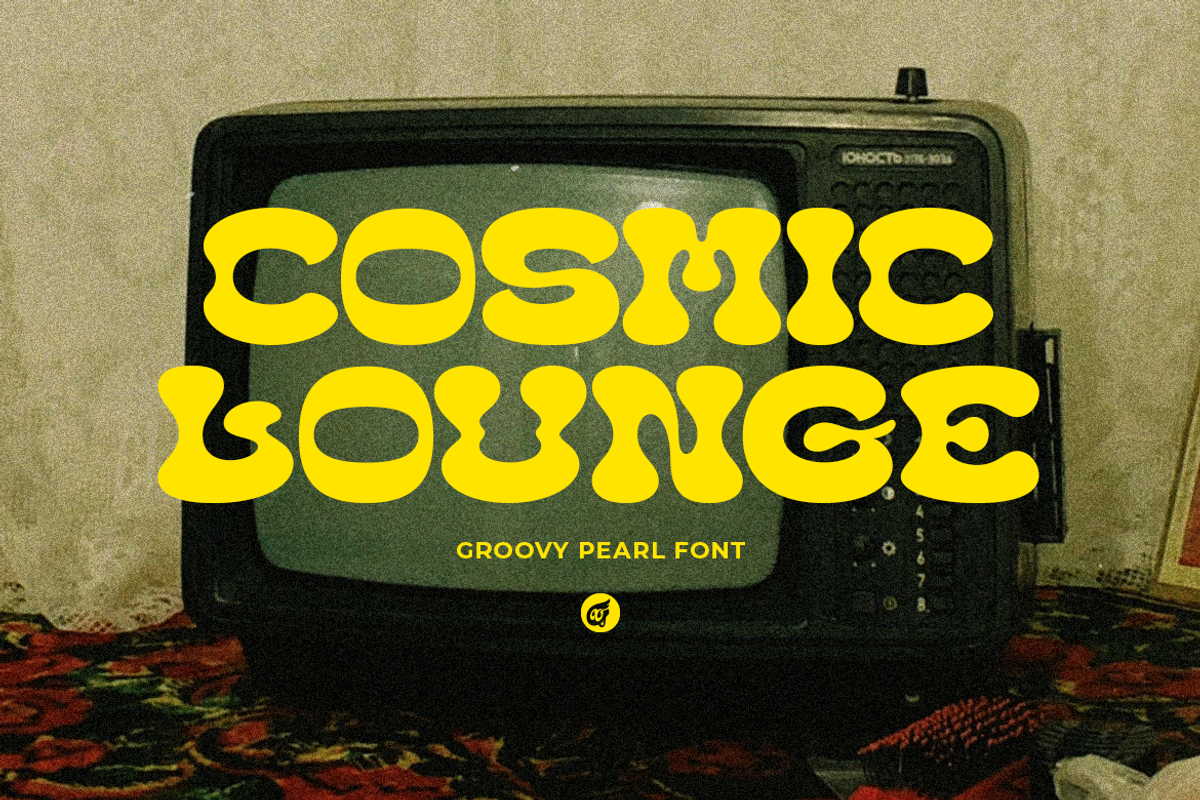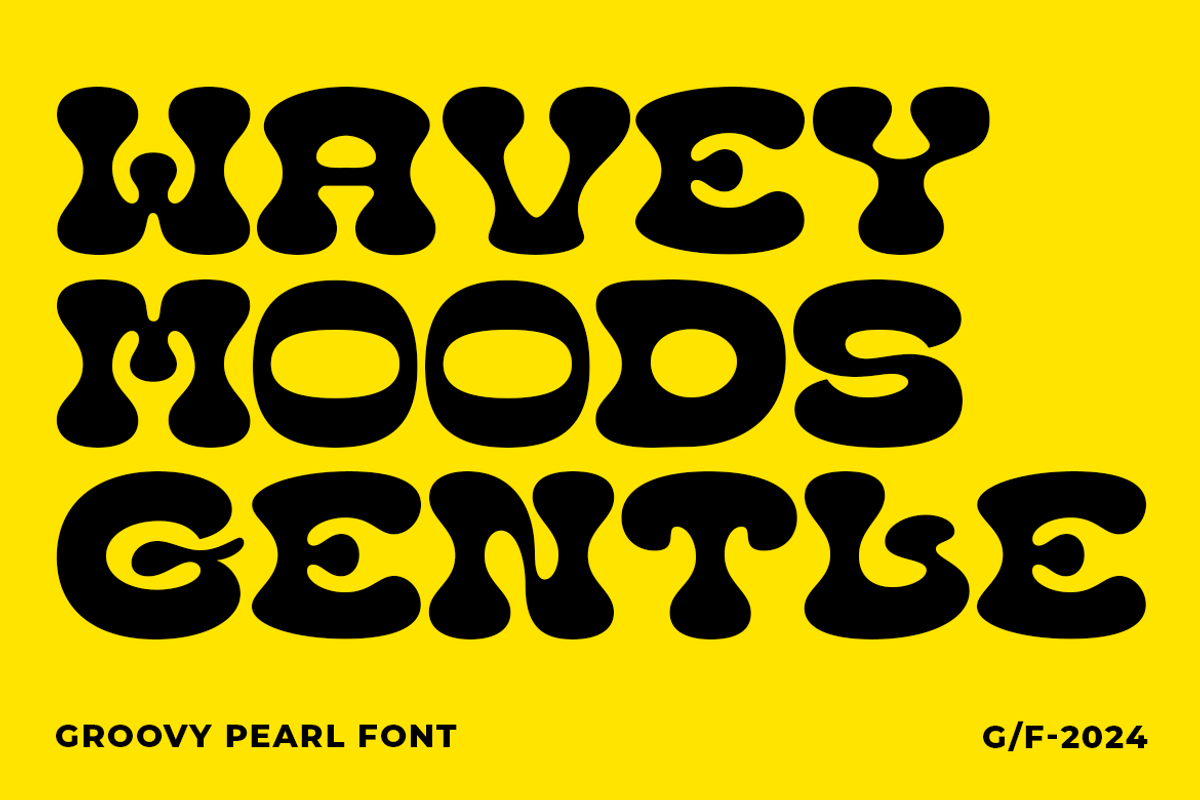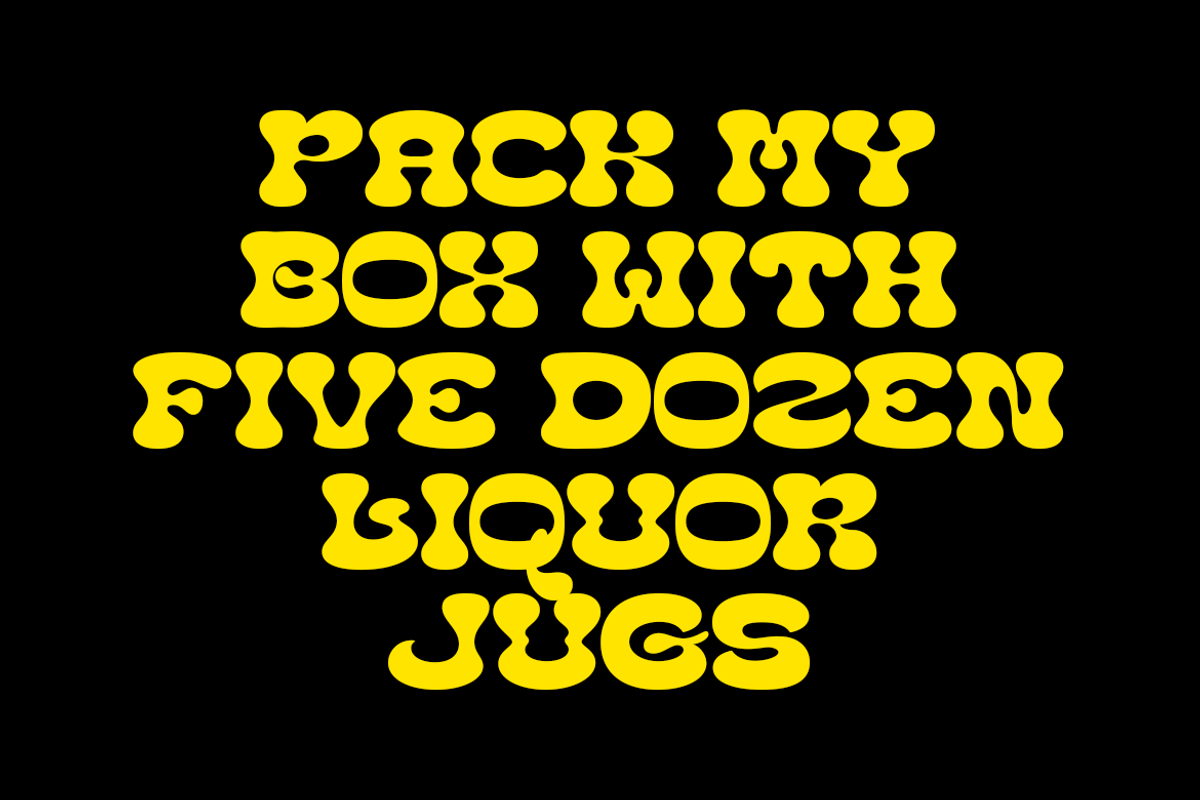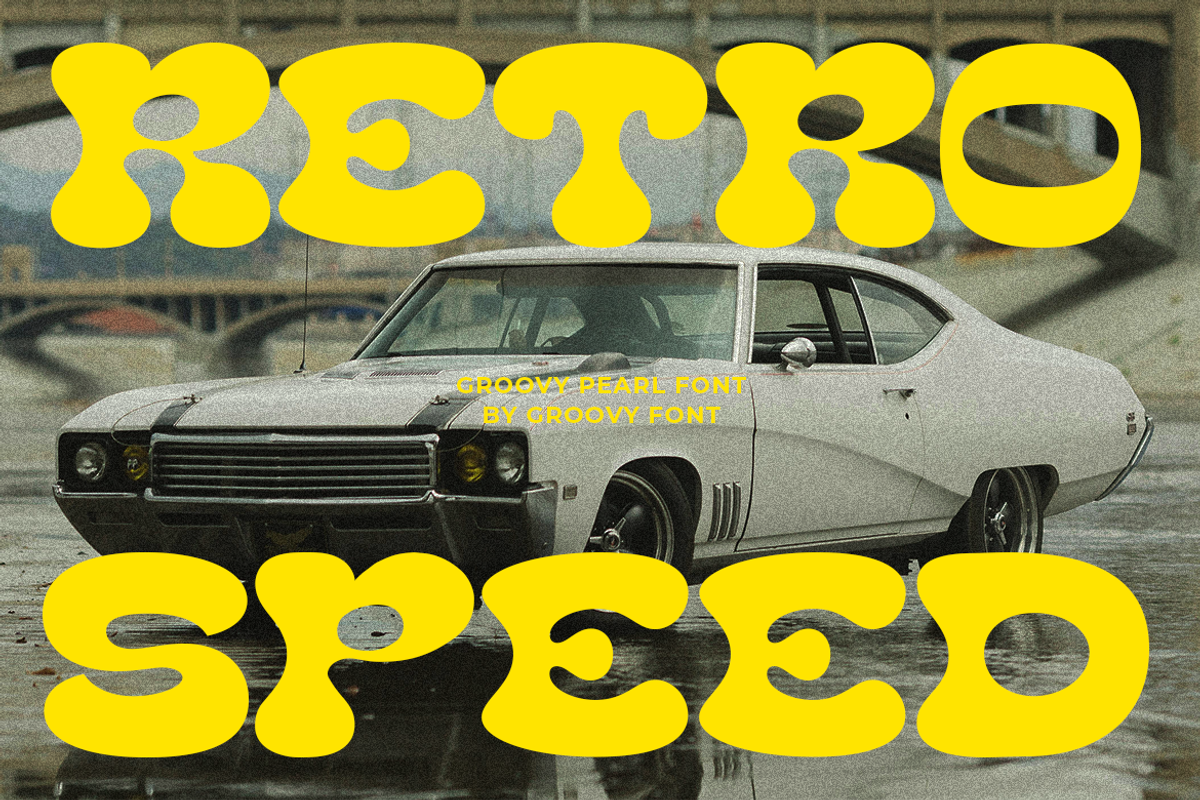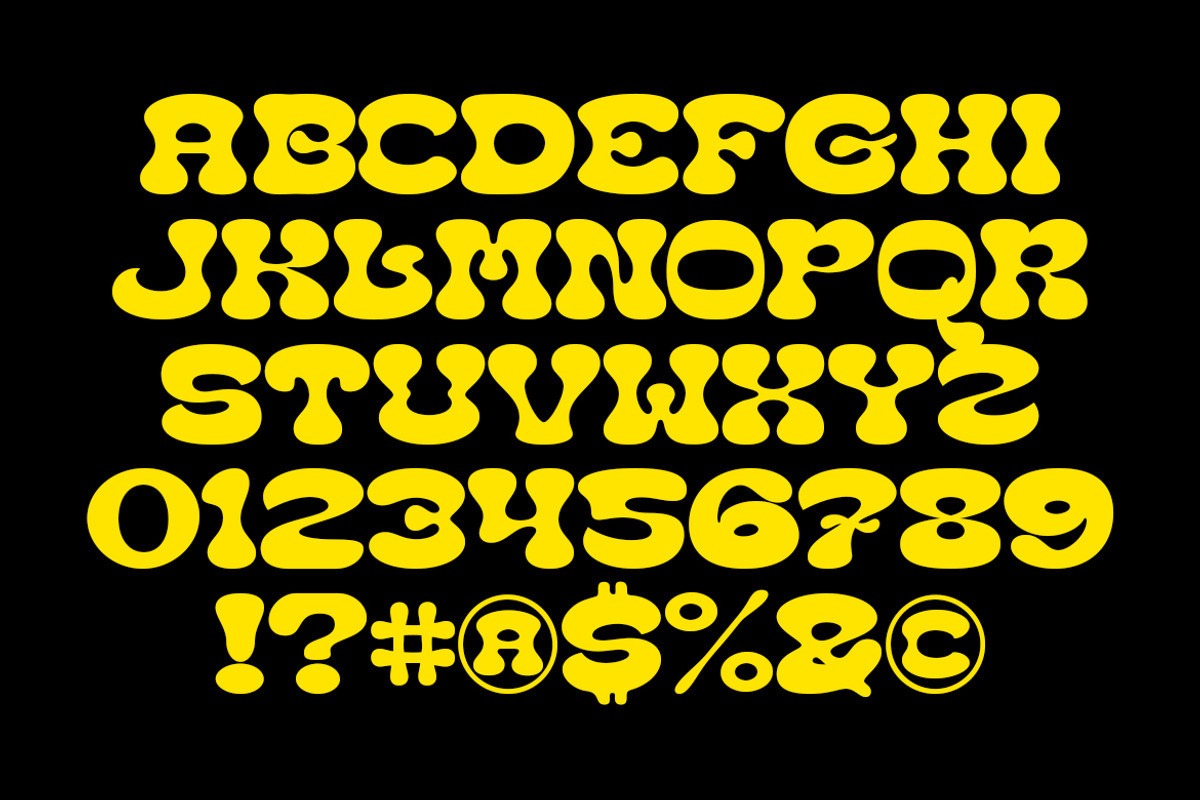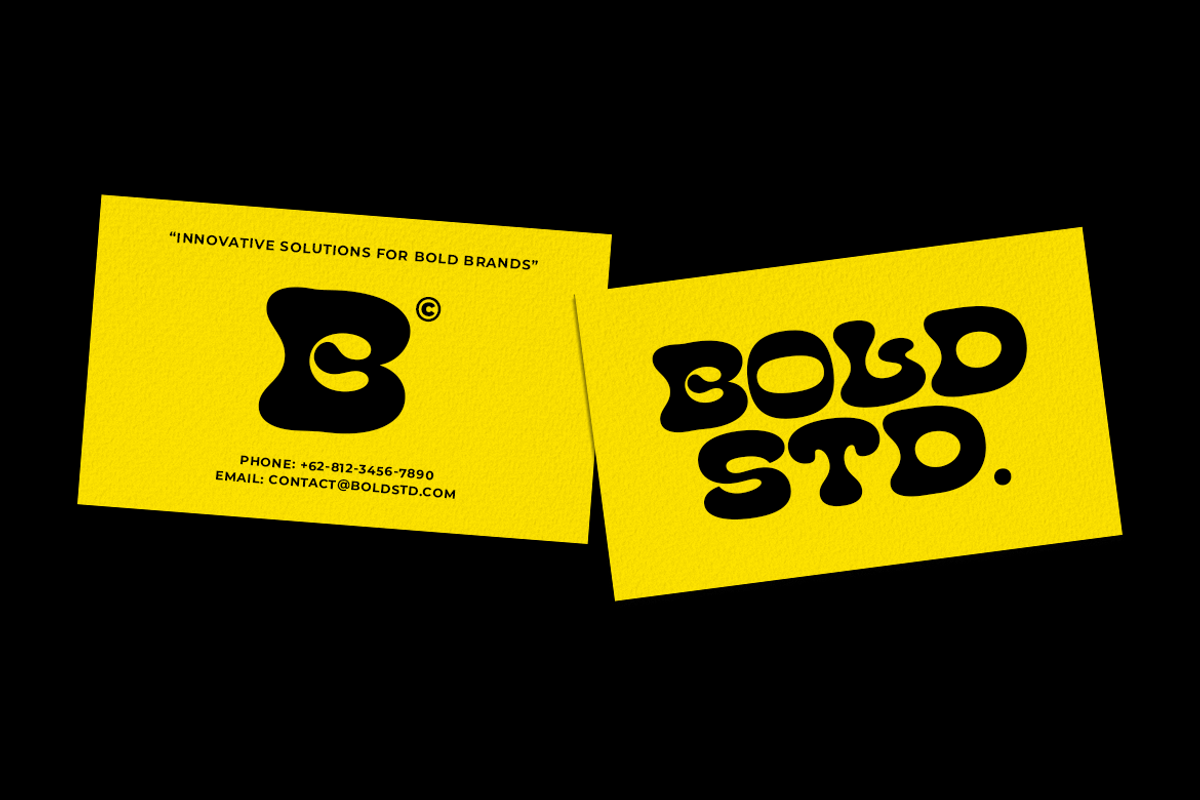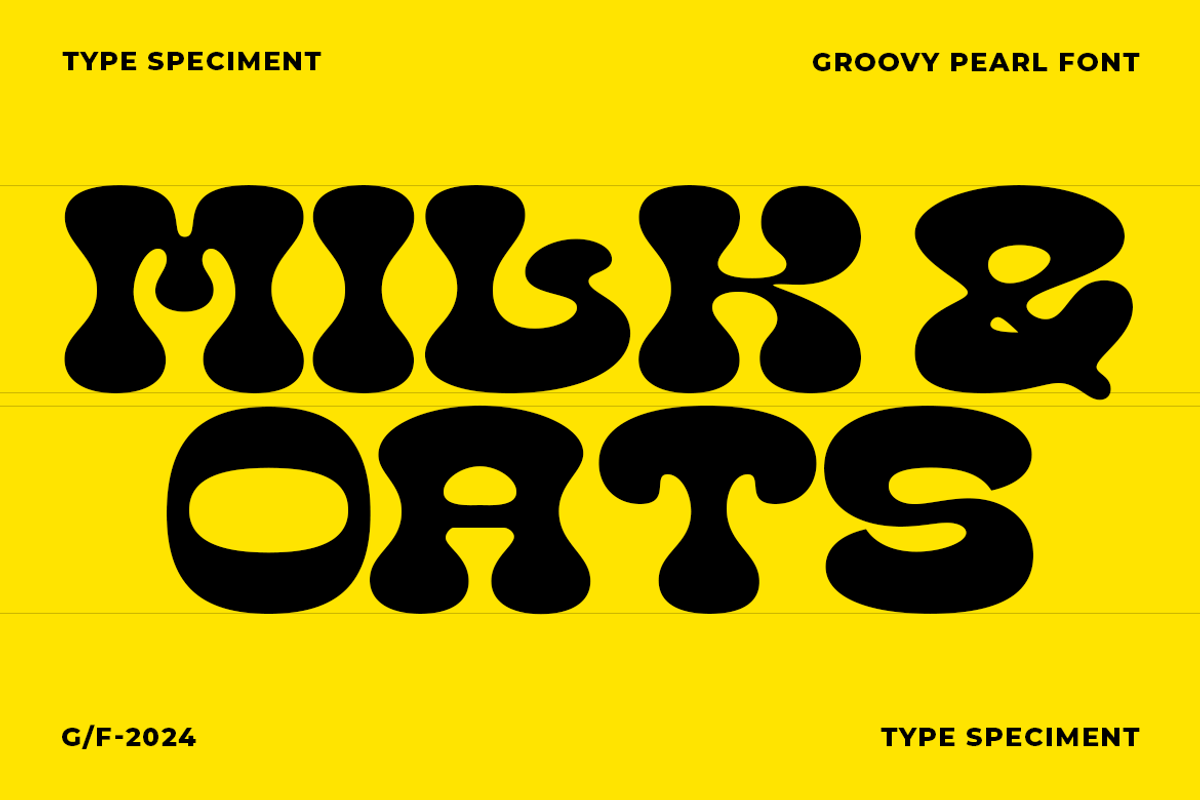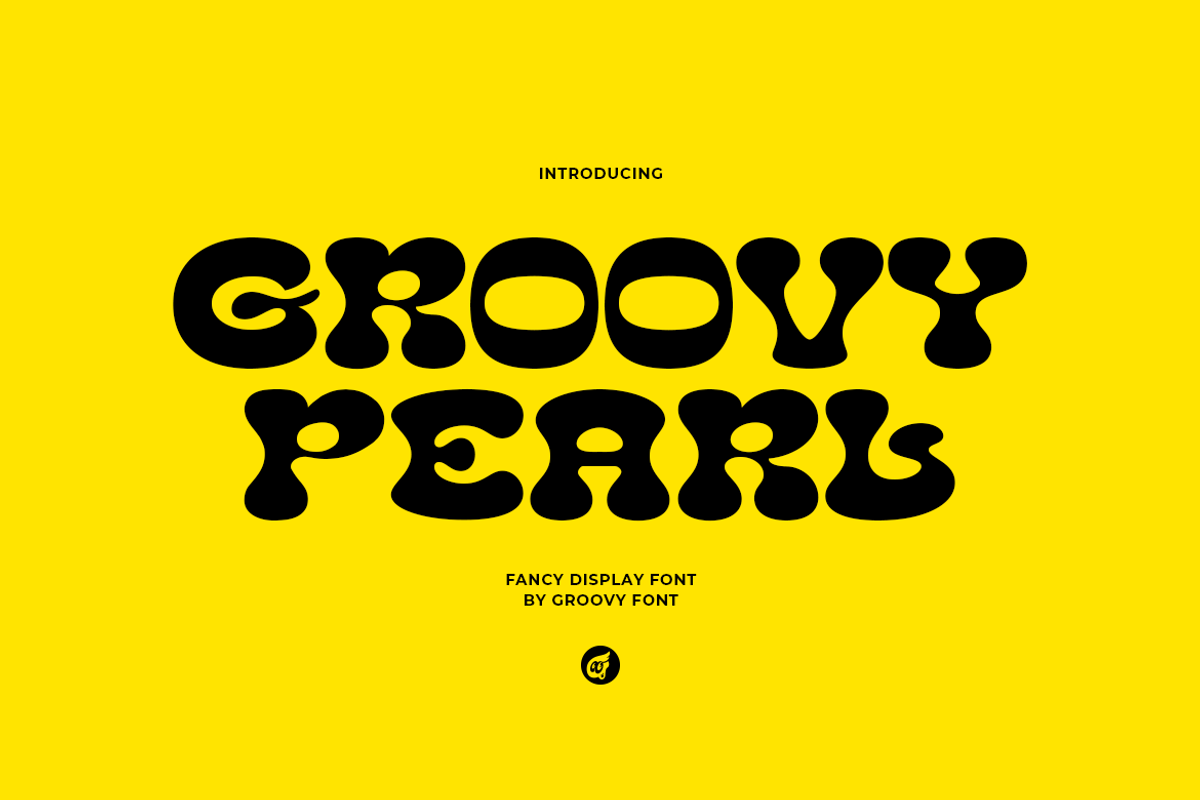
Groovy Pearl - Fancy Display Font
Groovy Pearl is a Fancy Display Font that exudes retro charm with a bold and playful design.
With its unique style, this font is perfect for adding a touch of flair to your projects, bringing a sense of nostalgia and fun to your designs.